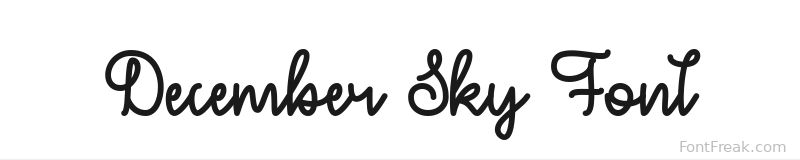
DecemberSkyFont
December Sky Font
About DecemberSkyFont
DecemberSkyFont, designed by Misti Hammers, is a charming handwritten font that effortlessly combines elegance with a playful spirit. As a script typeface, it features smooth, flowing lines and a casual yet sophisticated aesthetic that sets it apart. The stroke weight varies subtly, providing a sense of dynamism, while the moderate contrast between thick and thin strokes enhances its visual appeal. The generous spacing allows for easy readability, making it an excellent choice for a variety of design projects.
This versatile font is perfect for several specific use cases. It shines in wedding invitations, where its romantic flair can beautifully convey love and joy. Additionally, DecemberSkyFont is well-suited for greeting cards, bringing warmth and a personal touch to heartfelt messages. It also works wonderfully on restaurant menus, adding a hint of personality that can entice diners. For content creators, using this font in social media graphics or blog headers can help capture attention with its inviting charm.
What truly makes DecemberSkyFont stand out is its ability to evoke a sense of warmth and creativity. The font’s whimsical style invites engagement and offers a refreshing alternative to more traditional typefaces. Whether you’re crafting a personal project or a professional design, the DecemberSkyFont font free download is an excellent choice to elevate your work and leave a lasting impression.